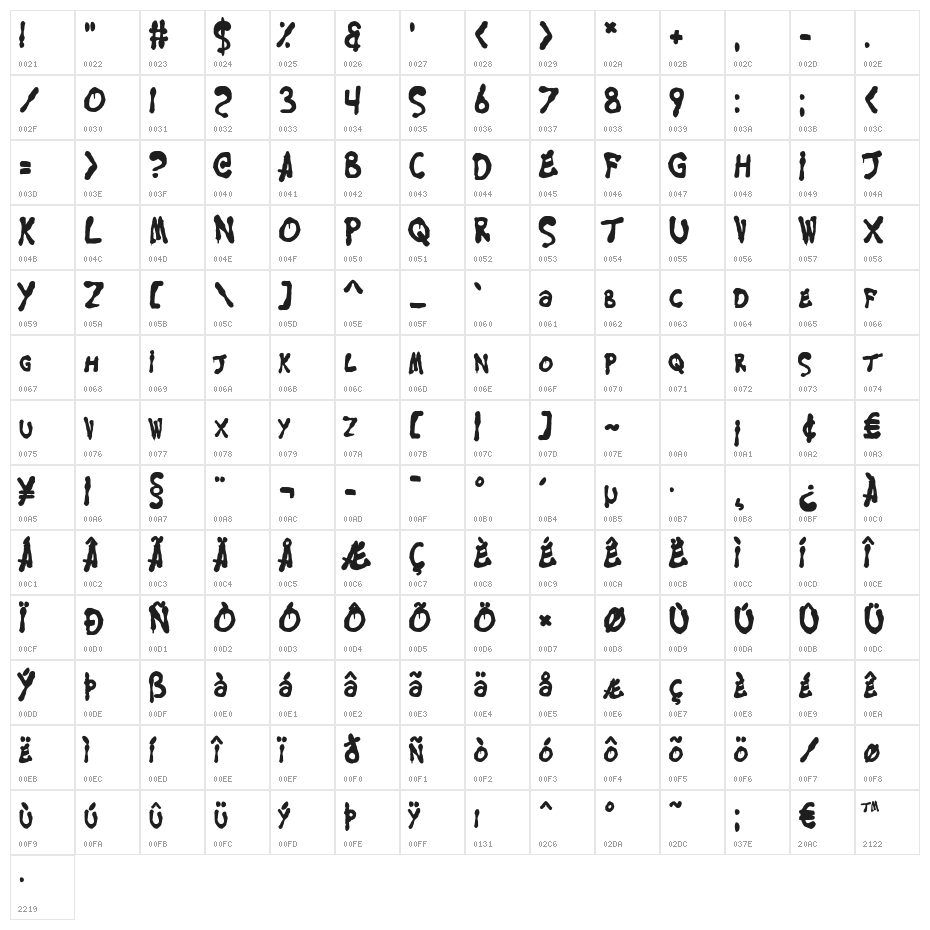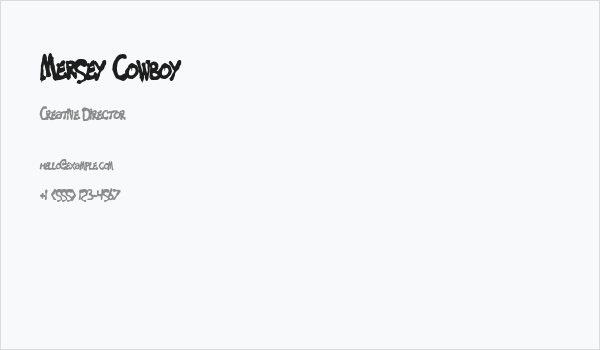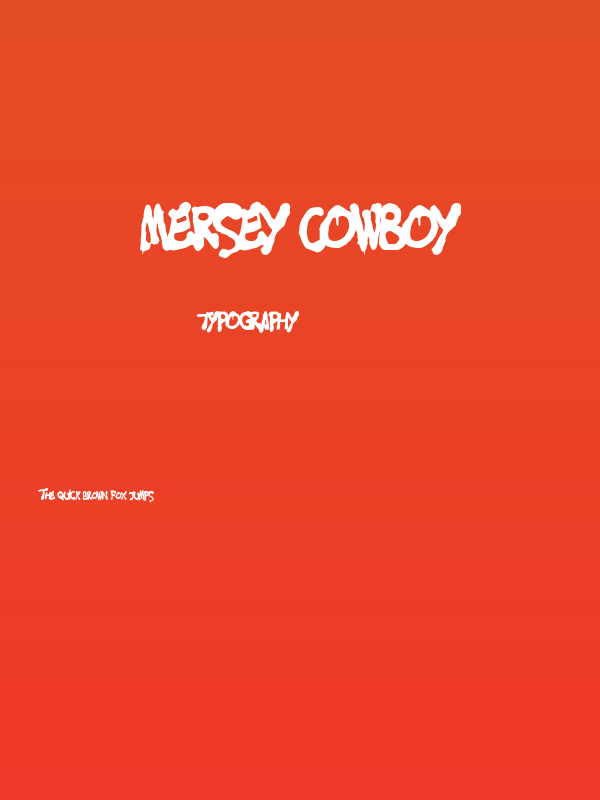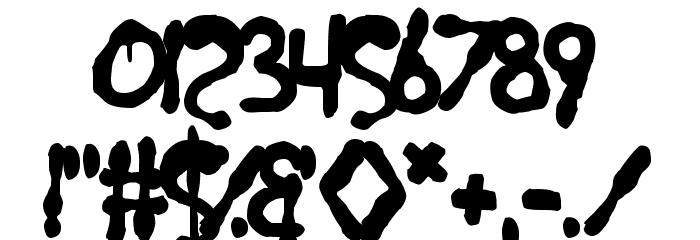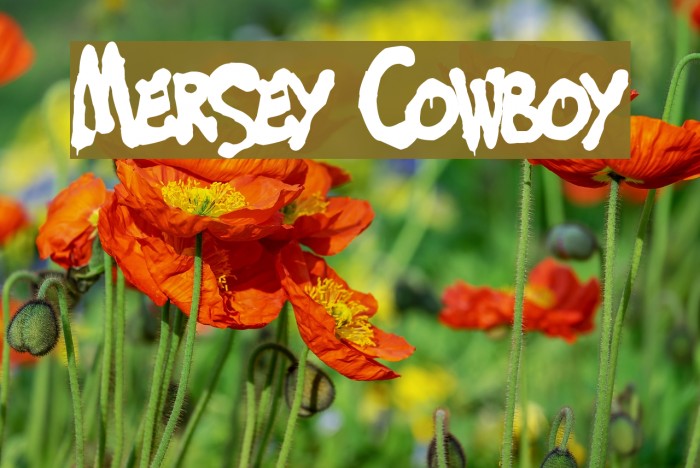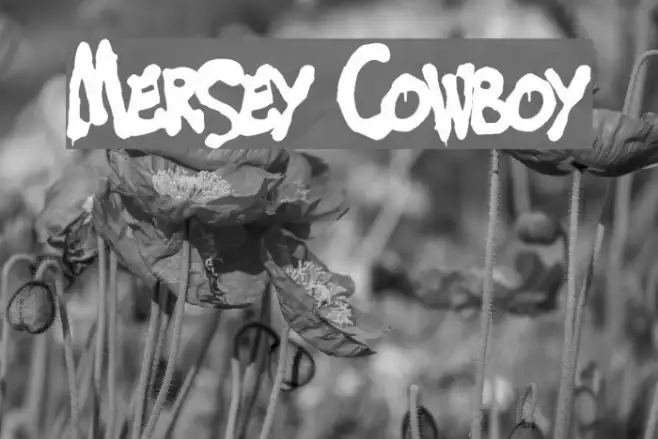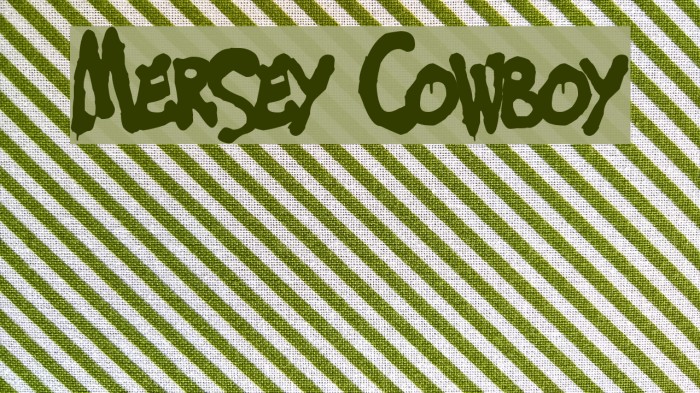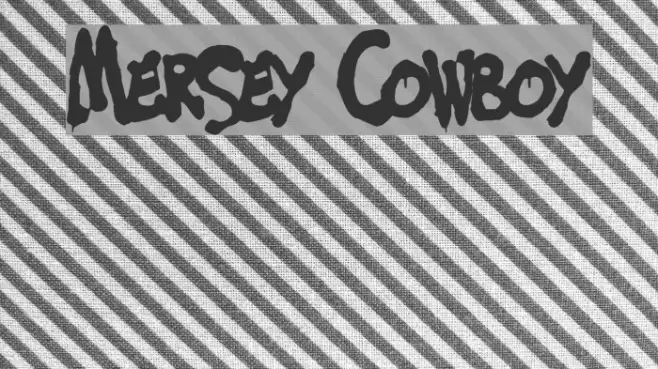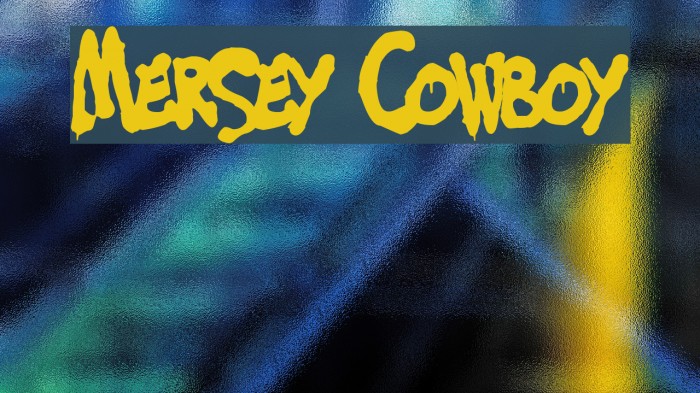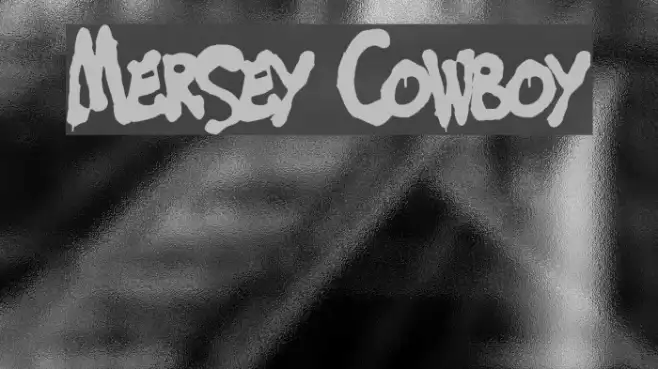
Mersey Cowboy Font
Mersey Cowboy Description
This font features a bold, rugged style with thick, uneven strokes that give it a hand-drawn appearance. The characters are heavily stylized, with exaggerated curves and angles that create a dynamic, energetic feel. The uppercase and lowercase letters maintain a consistent design, while the numbers and special characters follow the same bold and expressive aesthetic. The font's unique style makes it stand out, with a playful yet assertive presence that captures attention. Its irregular shapes and bold lines suggest a sense of movement and creativity, making it suitable for projects that require a distinctive and impactful visual identity.
| Proposed Projects | Ideal for posters, album covers, branding projects, and any design requiring a bold, artistic touch. |